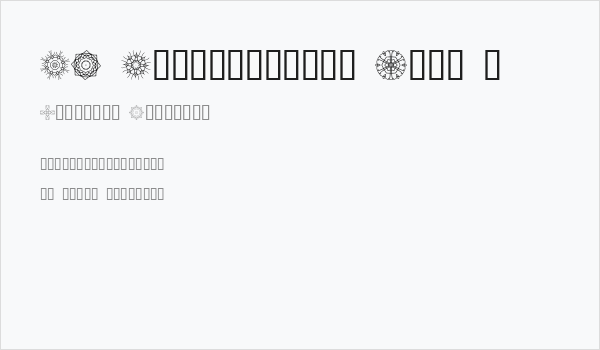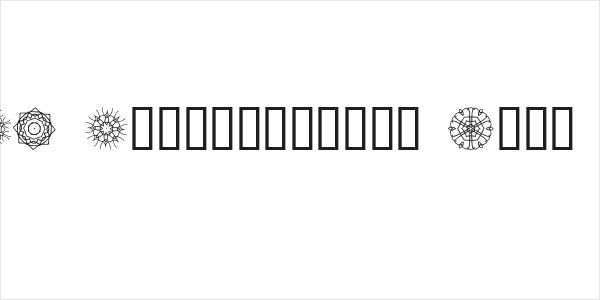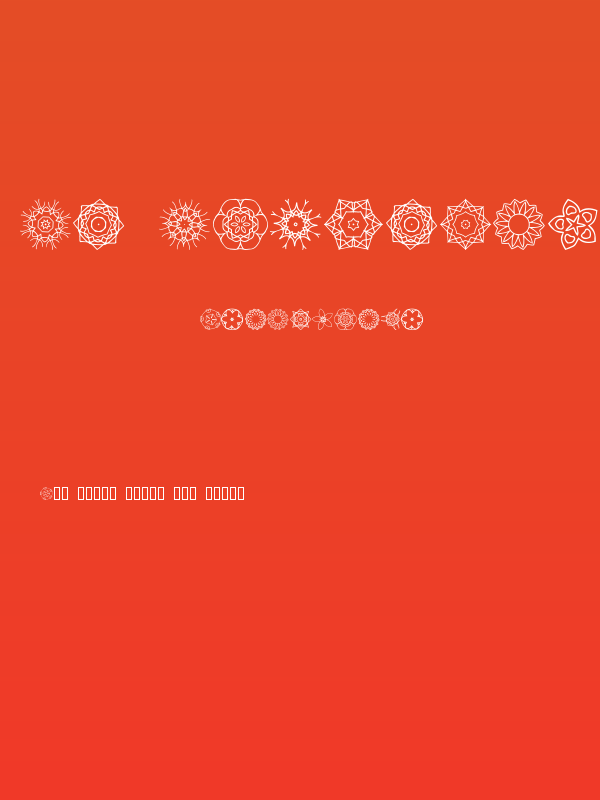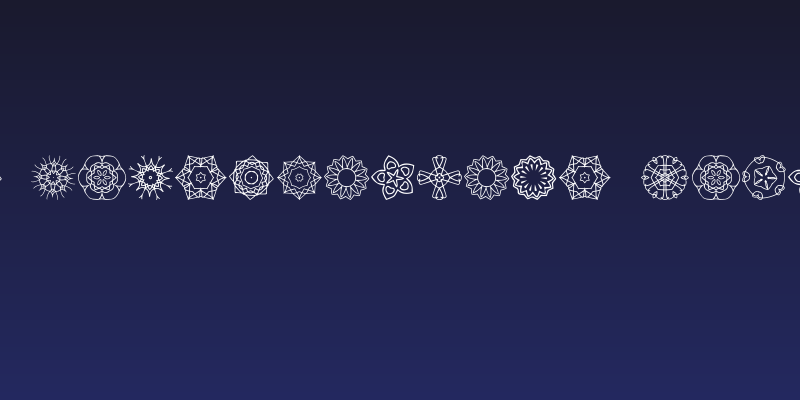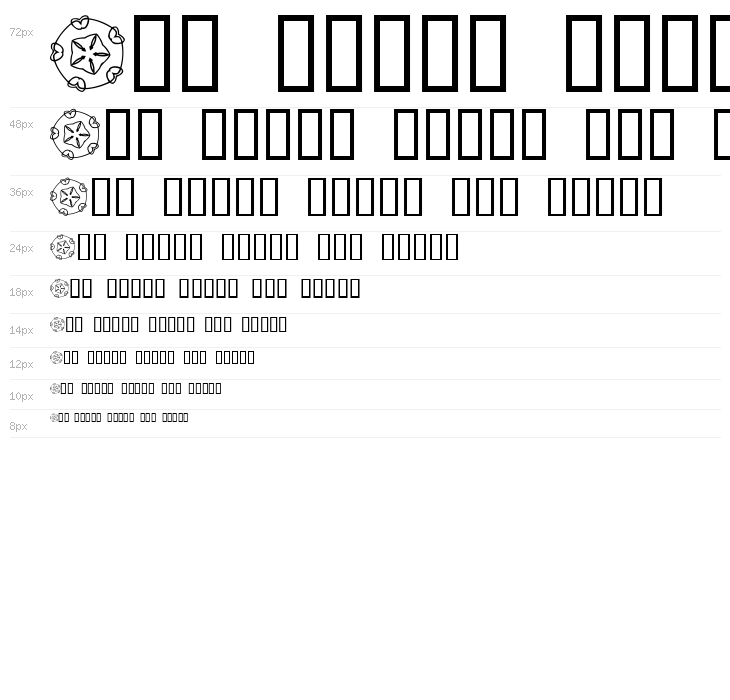
JI Kaleidoscope Bats 2 Font
JI Kaleidoscope Bats 2 Description
A decorative dingbat font featuring a variety of intricate, symmetrical kaleidoscope and mandala-like shapes, each glyph presenting a unique geometric or floral pattern. The designs are outlined, with no filled areas, and exhibit a high level of detail and symmetry.
| Use Case | Ornaments, embellishments, icons, creative dividers |
| Proposed Projects | Ideal for decorative borders, invitations, scrapbooking, art projects, digital stickers, and creative branding elements. |